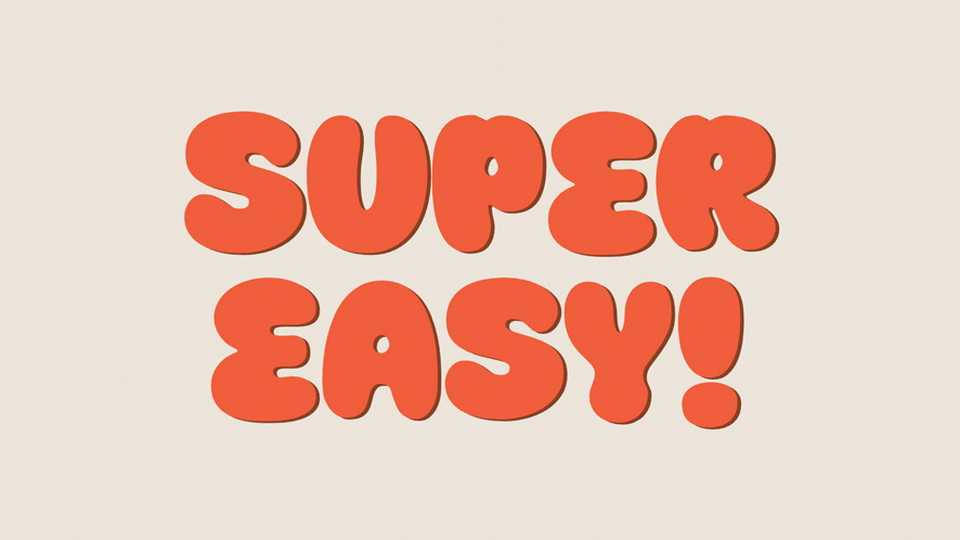
Download Super Easy font, a bubbly hand crafted typeface charged with a bold yet fun vibe. With its organic and natural look, Super Easy font is ready to make a big impression.